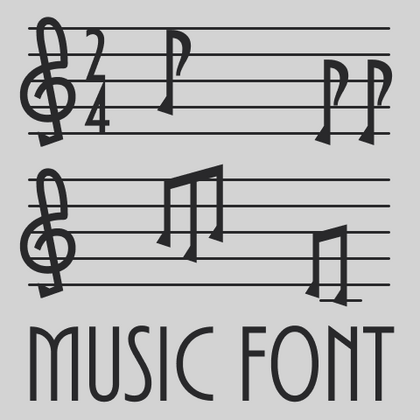
Music font
Typography in music design is an art form in itself, where each letter reflects rhythm, sound, and emotion. Music fonts feature dynamic shapes, rhythmic proportions, and expressive details that visually translate the energy of sound. The TypeType collection includes a range of bold display fonts and refined calligraphic styles, crafted to bring the essence of music to posters, album covers, and promotional materials. Through typography, these fonts create a powerful visual connection to the mood and identity of a musical piece.
TT Odellia is an old-style serif with a modern design, inspired by Venetian typefaces and classical music.
TT Nooks Script features a unique design that has no direct analogs.
TT Bells combines the elegant softness of Antiqua with a complex and daring temper reflected in straight stroke terminals and arrowheaded serifs. The typeface is based on the broad nib, which creates these hallmark terminals and serifs.
TT Regins is a Scottish modern serif. Striking contrast and sharp triangular serifs give this font a stern and commanding character, while refined forms, enlarged lowercase letters, and slightly condensed, static proportions add grace to its design.
TT FRANTZ IS AN EXPERIMENTAL VARIABLE FONT, DISTINGUISHED BY ITS SLIMNESS AND LIGHTNESS. THE VARIATION IN THE FONT AFFECTS THE CHANGE IN THE HEIGHT OF THE MEAN LINE—BY MOVING THE AXIS ADJUSTMENT SLIDER YOU CAN EASILY RAISE OR LOWER THE MEAN LINE OF THE FONT.
TT Quaris is an exquisite, modern high-contrast sans whose design balances between soft and sharp. The glyph shapes in the font are fluid and tend towards roundness, yet there are also sharp elements.
TT Ricordi Allegria is a sleek and intelligent contemporary Florentine grotesque.
TT Bakers is a fluid serif with a gentle and lively character. This font is like freshly baked goods: it`s warm and soft, especially in its bolder weights.
TT Rounds Neue is a soft and friendly font that knows how to be different. In lighter font styles it looks minimalist and neutral. The bold font styles make it puff up and achieve maximum roundness, exuding childlike charm.
TT Fors is a design Swiss Army knife of typography. This geometric sans serif delivers pure versatility through clean, refined proportions. It can be used for defining interfaces or crafting visual accents.
TT Ramillas is a stylish and contemporary serif that elevates design to an art form. Characterized by its unique decorative styles and initials with a floral ornament, it crafts visual experiences that are truly one-of-a-kind. Already adorning over 3000 websites globally, it’s a Modern Cyrillic award-winner that redefines typographic sophistication.
TT Modernoir is a display sans serif with dynamic proportions. Fluid lines and delicate Art Nouveau forms in this typeface blend seamlessly with the rhythmic flow and improvisational freedom of jazz.
TT Moons is a slim and contrast serif. This font family works especially smart in classic design themes. TT Moons is a typeface of the glyptal modern typeface.
TT Gertika is a geometric sans serif with a dynamic character and a dancing rhythm. This font`s idea originates from the lettering featured on an American poster from the late 1930s.
TT Biersal is a display sans serif with a free-spirited, playful, and adventurous nature. The concept of this font was sparked by a German poster from the early 1930s.
TT Paplane is a squared-looking display sans serif.
TT Tricks is a modern text serif with a design reflecting the style of Transitional serifs. This font has a calm, elegant, and moderately stern character.